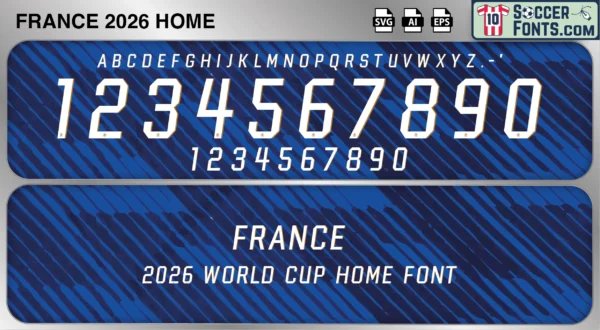
France 2026 World Cup Font Home
The France 2026 World Cup Font Home is an editable soccer jersey lettering design in vector format inspired by the France home kit style used during the 2026 FIFA World Cup. This football font artwork is prepared for football shirt recreations, custom jersey projects, football kit mockups and sports graphic design workflows.
The France 2026 World Cup Font Home is specifically associated with the lettering system used on France’s home shirts during the tournament. For the 2026 World Cup cycle, France utilizes a dedicated home font design that differs from the typography used on the away kit. The France 2026 World Cup Font Home therefore represents the official lettering style paired with France’s primary tournament shirt throughout the competition. This World Cup-era home kit is expected to remain especially significant among collectors, supporters and designers seeking accurate recreations of France’s official home shirt typography from the 2026 tournament.
France 2026 World Cup font home football shirt vector design
France 2026 World Cup Font Home